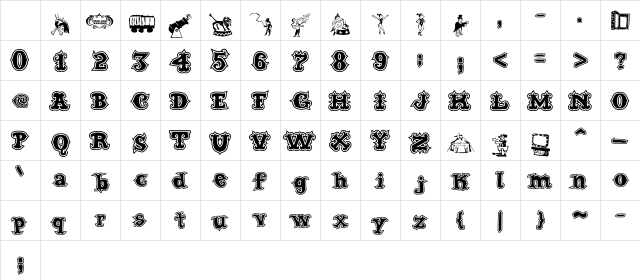
Complete Cordel Circo Mambembe Outline Bold glyph index. Displaying only characters natively supported by Cordel Circo Mambembe Outline Bold font.
Cordel Circo Mambembe Outline is built around its visual character rather than neutral utility - its distinctive forms are designed to make an impression at display sizes. Its bold stroke weight gives it real presence on the page.
Font Pairing: Pair with a clean neutral sans-serif for body copy to let Cordel Circo Mambembe Outline's character lead without overwhelming the composition.
Pro Tip: Use Cordel Circo Mambembe Outline exclusively at display sizes - it was designed to be seen, not read at length. Let a neutral companion handle body copy.